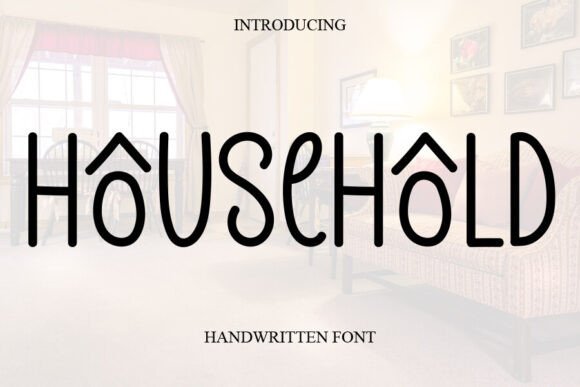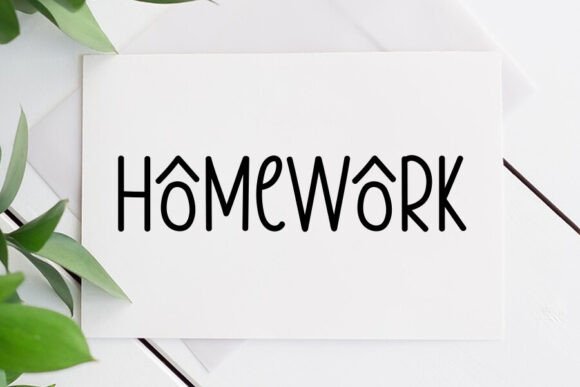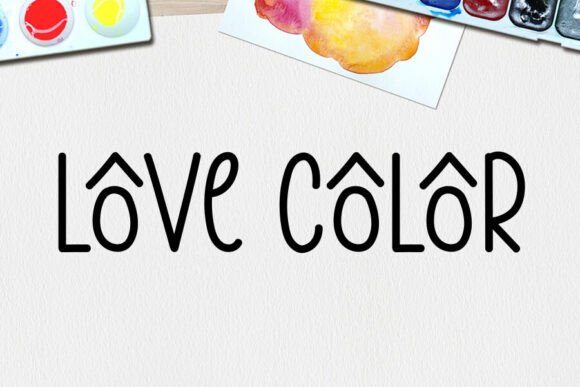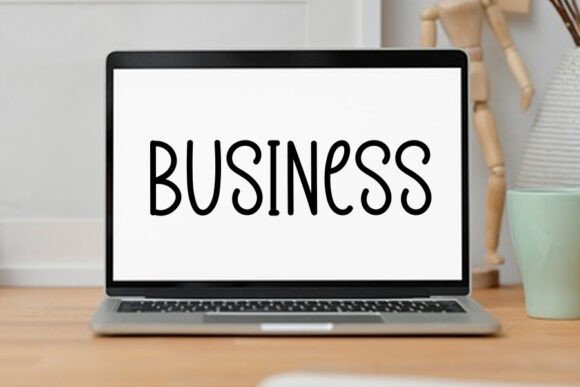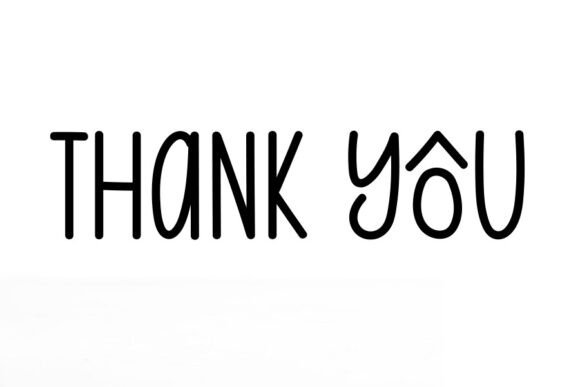
Adding a Touch of Home to Your Designs
Have you ever been working on a project and suddenly, the perfect font pops into your head? It’s the one that reminds you of a handwritten note from a loved one or a treasured family recipe. For many designers, this is exactly what inspired the creation of Household Font – a simple, yet versatile handwritten font that brings a natural feel to any project.
Household Font is more than just a font; it’s a way to add a personal touch to your designs. With its wide range of applications, from greeting cards to headlines, this font is guaranteed to add a warm and inviting feel to your next project. Whether you’re a seasoned designer or just starting out, Household Font is a valuable addition to your toolkit.
Key Features of “Household Font”
- Unique Characteristics: Features a unique blend of modern and traditional elements, with a warm and inviting tone that is perfect for household and lifestyle branding.
Household Font Review
Overall, I think the “Household Font” has some nice qualities, but it also has some areas where it falls short. Let’s dive in and see what I mean.
- The font is very versatile and can be used in a wide range of applications, from headlines to body text.
- The font’s design is clean and modern, making it a great choice for websites and digital products.
- The font is highly legible, even at small font sizes, making it a great choice for long blocks of text.
- The font lacks character and personality, making it feel a bit generic and unremarkable.
- The font’s weight range is a bit limited, with only a few options available.
- The font may not be the best choice for applications where a lot of emphasis is needed, as it can feel a bit flat and unexciting.
Overall, I think the “Household Font” is a solid choice, but it’s not particularly exciting or memorable. It gets the job done, but it doesn’t really stand out from the crowd. If you’re looking for a clean and modern font that’s easy to read, then the “Household Font” might be a good choice. But if you’re looking for something with a bit more personality and flair, you might want to look elsewhere.
The Household Font is ideal for creating a warm and welcoming atmosphere in home decor designs, such as invitation templates, home layout designs, and product labels. To get the most out of this font, experiment with different font sizes and combinations to create a unique and personalized look.